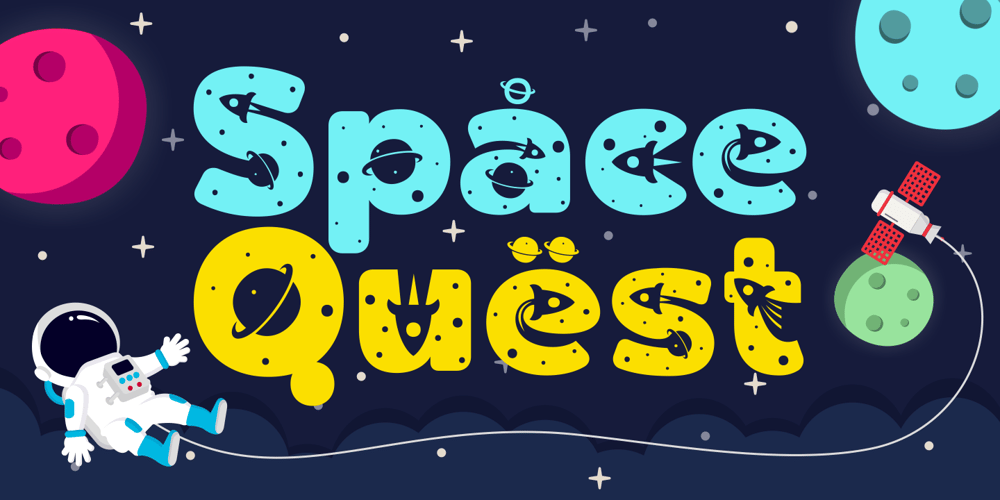
Space Quest Font Family was designed by Alfin Weniardi and published by Lone Army. Space Quest contains 1 styles and family package options. This font is inspired by aerospace. I use the negative spaces of each font to form planets or rockets. every glyph has its power. can be used as initials or as a word nicely. and also supports multilingual. the space design side is also found in punctuation to!thanks and enjoy the design! cherrs